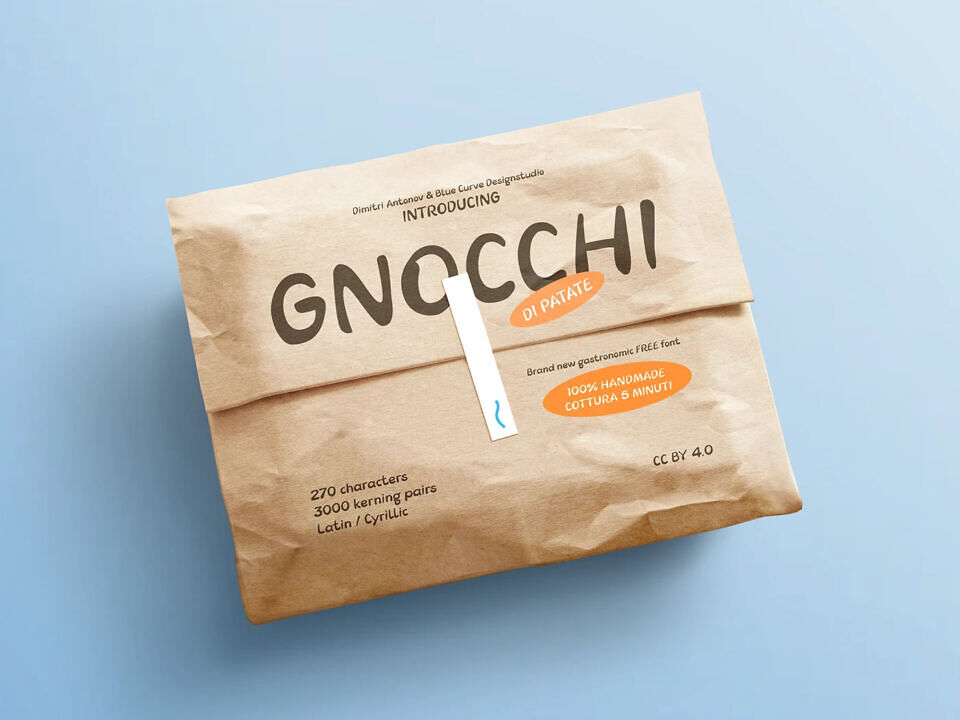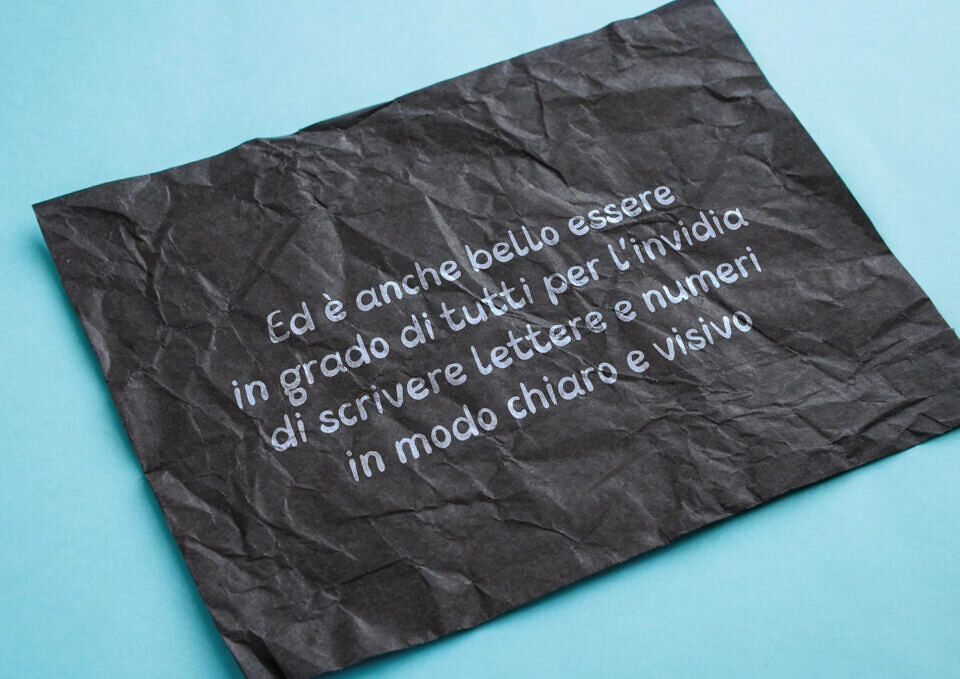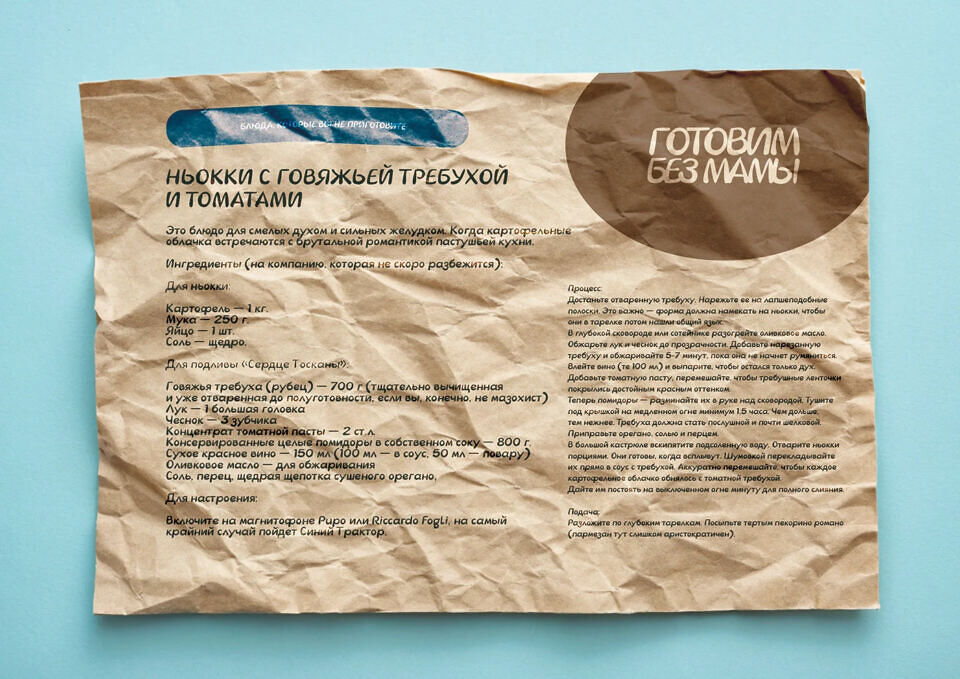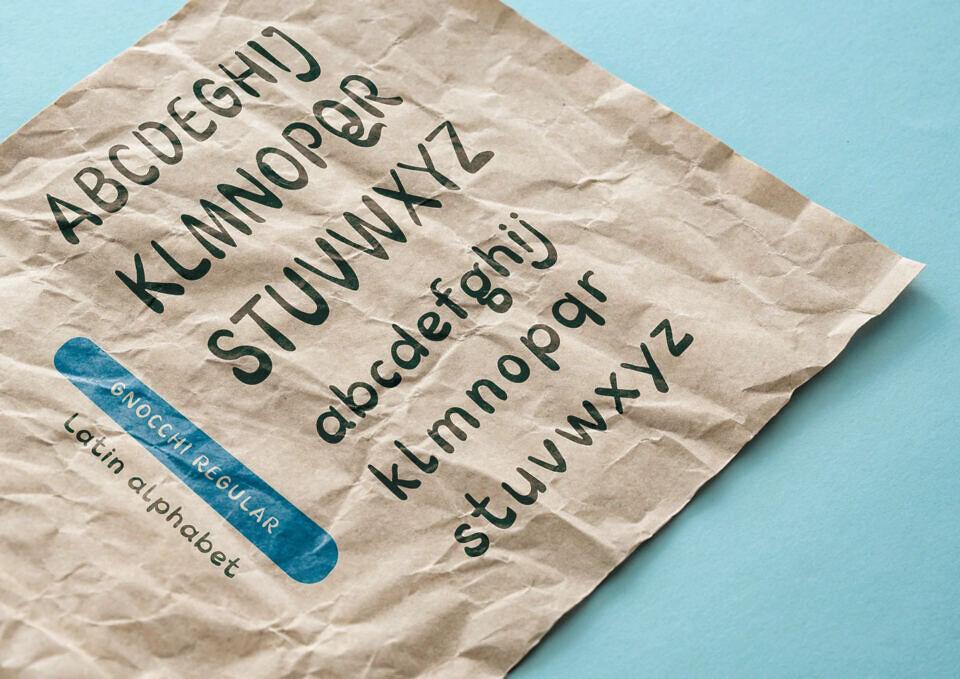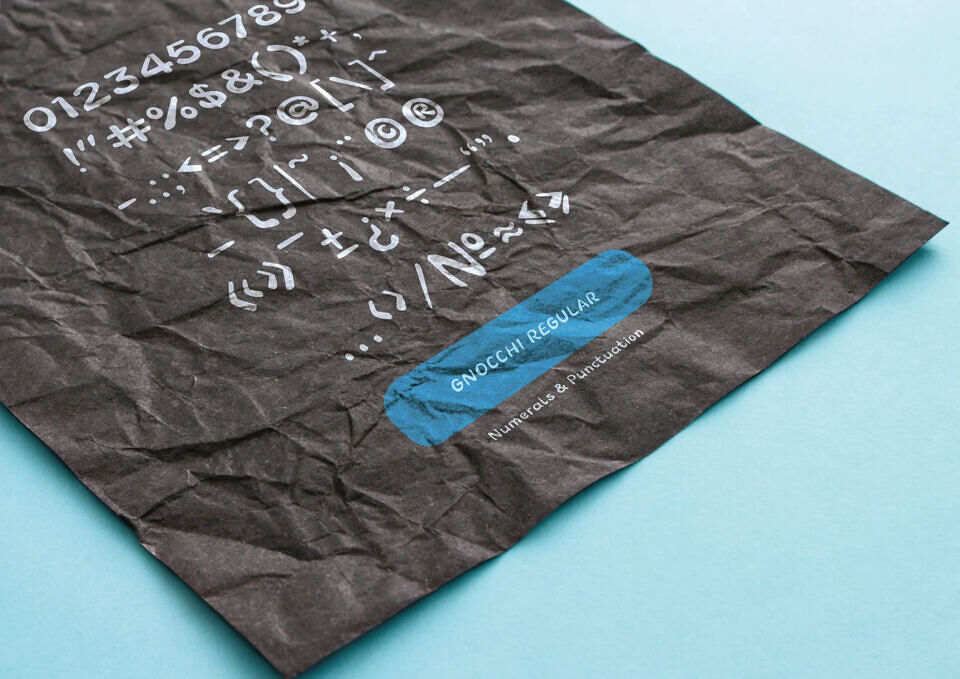
Gnocchi is a handmade free font designed by Dimitri Antonov and Blue Curve Designstudio. Characterized by its soft, doughy curves and organic, “gastronomic” feel, this display typeface brings a warm, artisanal touch to any project.
Supporting both Latin and Cyrillic alphabets with over 270 characters and 3,000 kerning pairs, it is perfect for Food packaging and menus, Quirky book covers, Social media branding, etc.